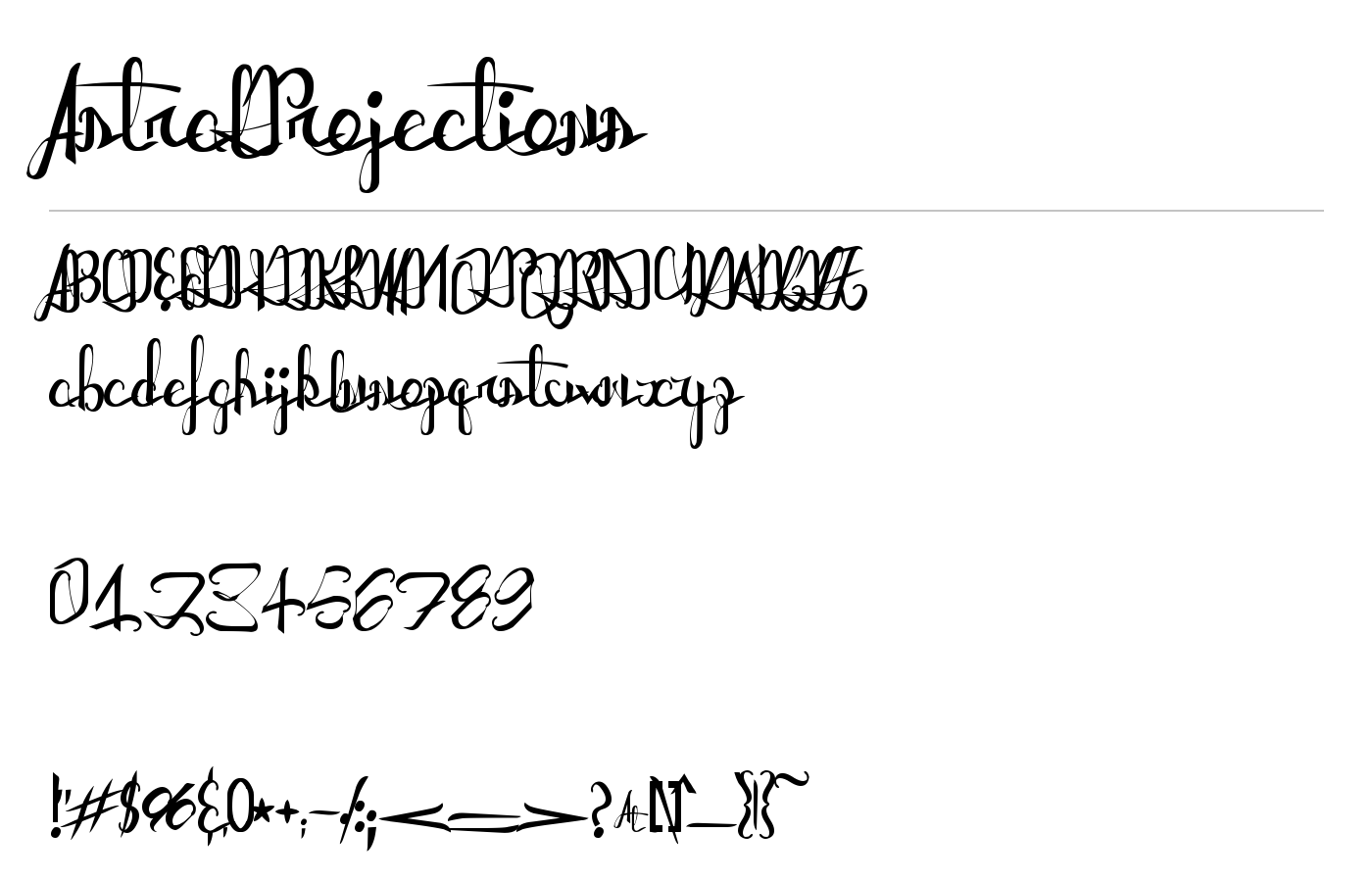
AstralProjections is a highly decorative script font that features intricate, fluid strokes resembling elegant handwriting with a modern twist. Its unique, artistic letterforms create a mystical and sophisticated vibe, making it ideal for creative branding, fashion, and editorial projects that seek a distinct, ornamental flair. This font stands out best in logos and headlines where its expressive style can truly shine.
AstralProjections Font
About AstralProjections Font
| Font family | AstralProjections Font |
| Designer | Max Infeld - Xerographer Fonts |